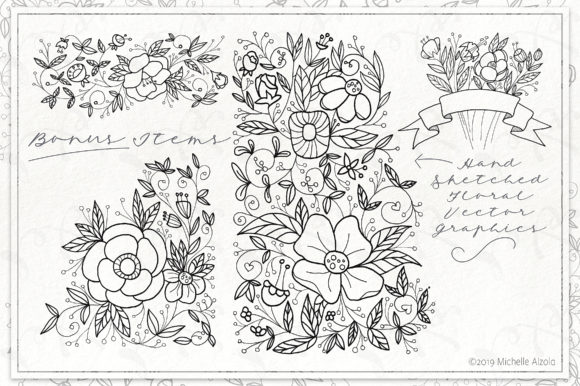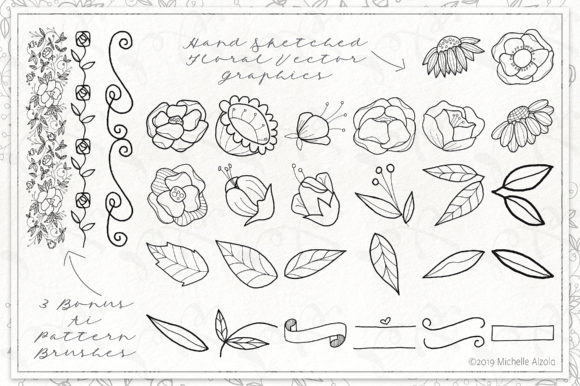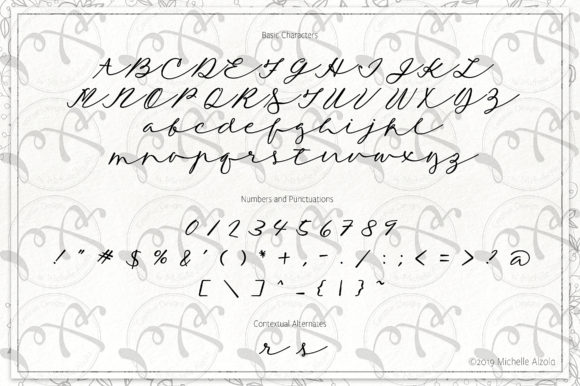
Lazy Tuesday Script Font
About Lazy Tuesday Script Font
The Lazy Tuesday is an amazing handwritten script font. It has a natural writing style and is perfect for adding a personal touch to your designs.